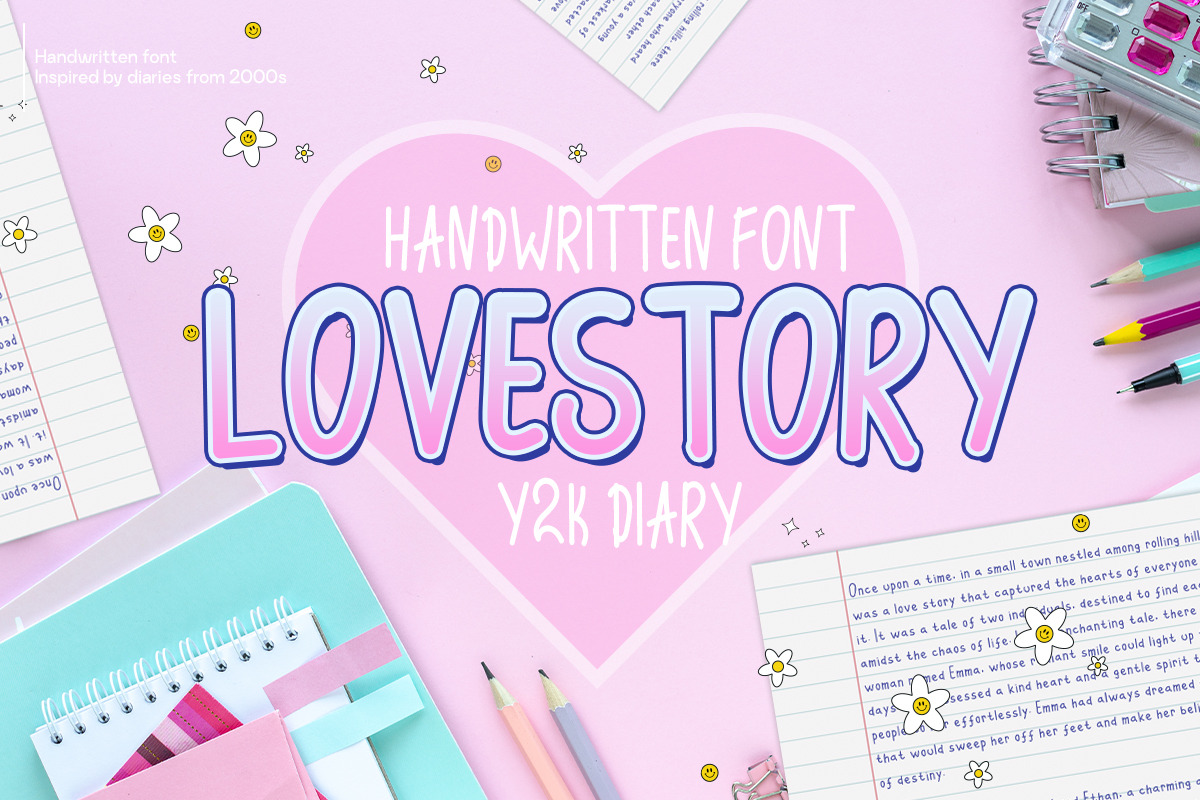
Lovestory - Handwritten Typeface
Introducing LOVESTORY: A Typeface Inspired by 2000s Friendship Diaries
LOVESTORY is a captivating typeface that draws inspiration from friendship diaries of the 2000s. With whimsical curves and delicate lines, it captures the essence of handwritten notes and doodles. This font brings nostalgia and warmth to personal projects, love letters, and more.
Let LOVESTORY transport you back to a time when friendships were cherished and stories were shared.
- Regular&Bold styles
- Bonus scribble elements